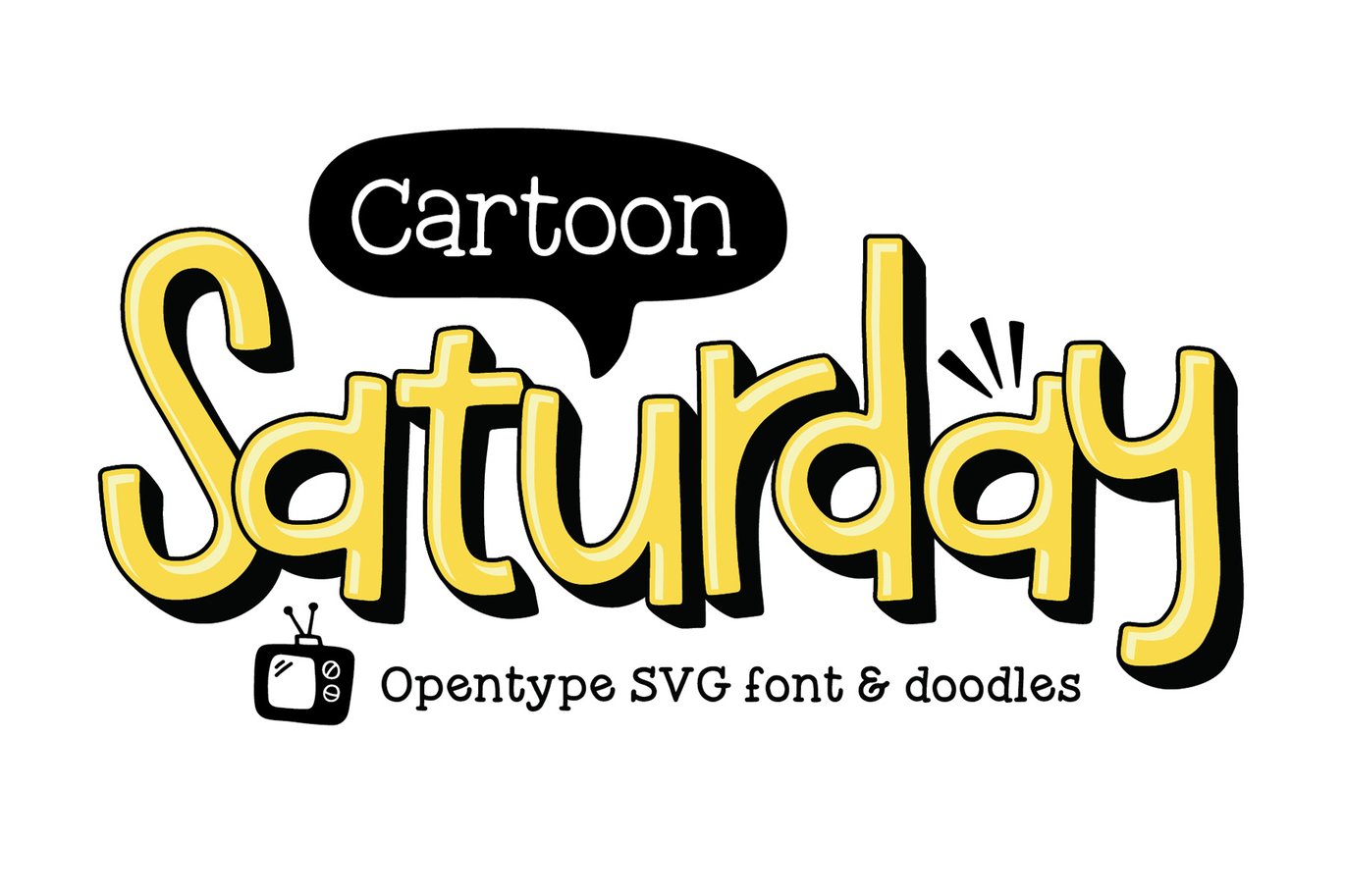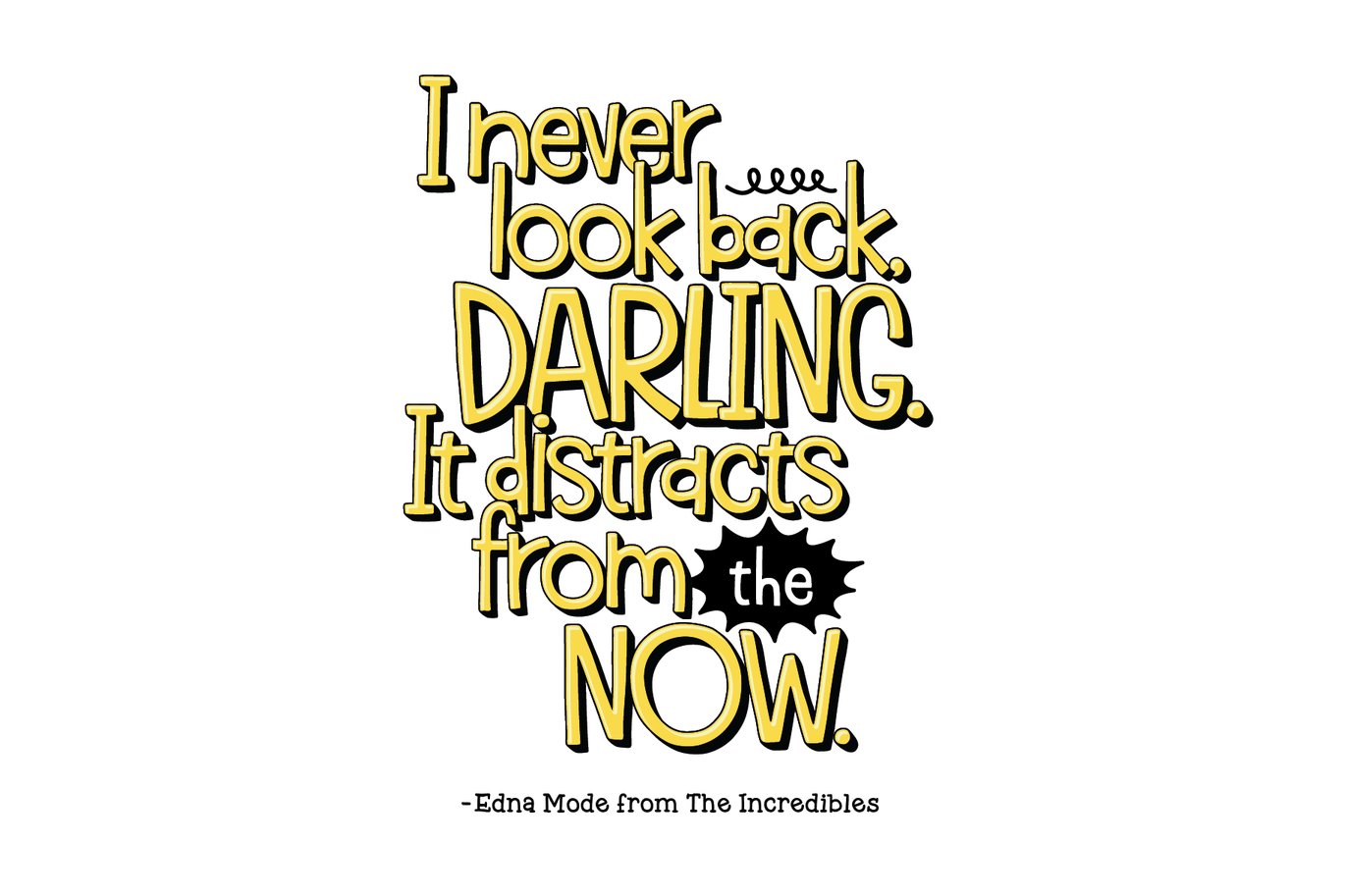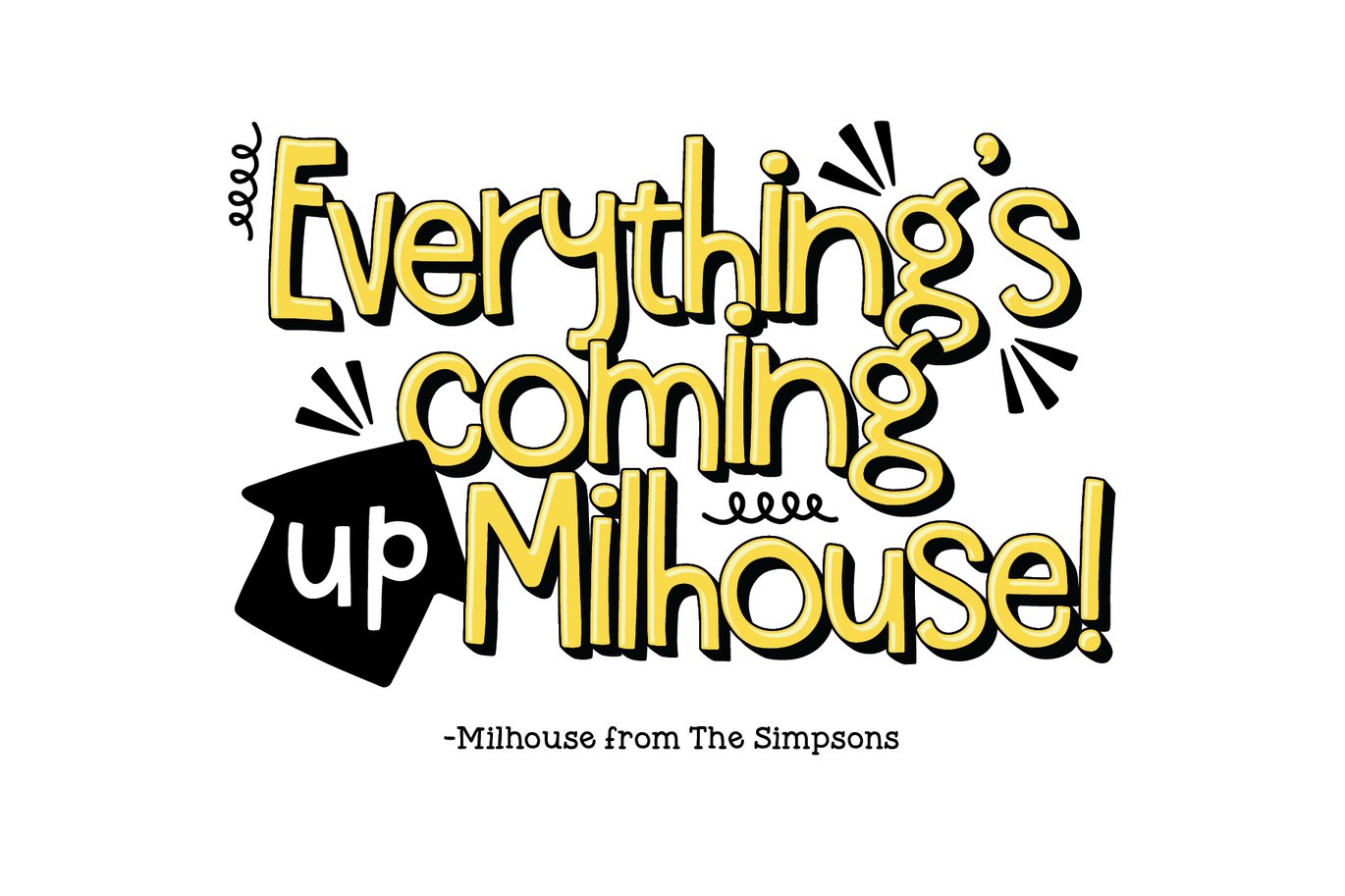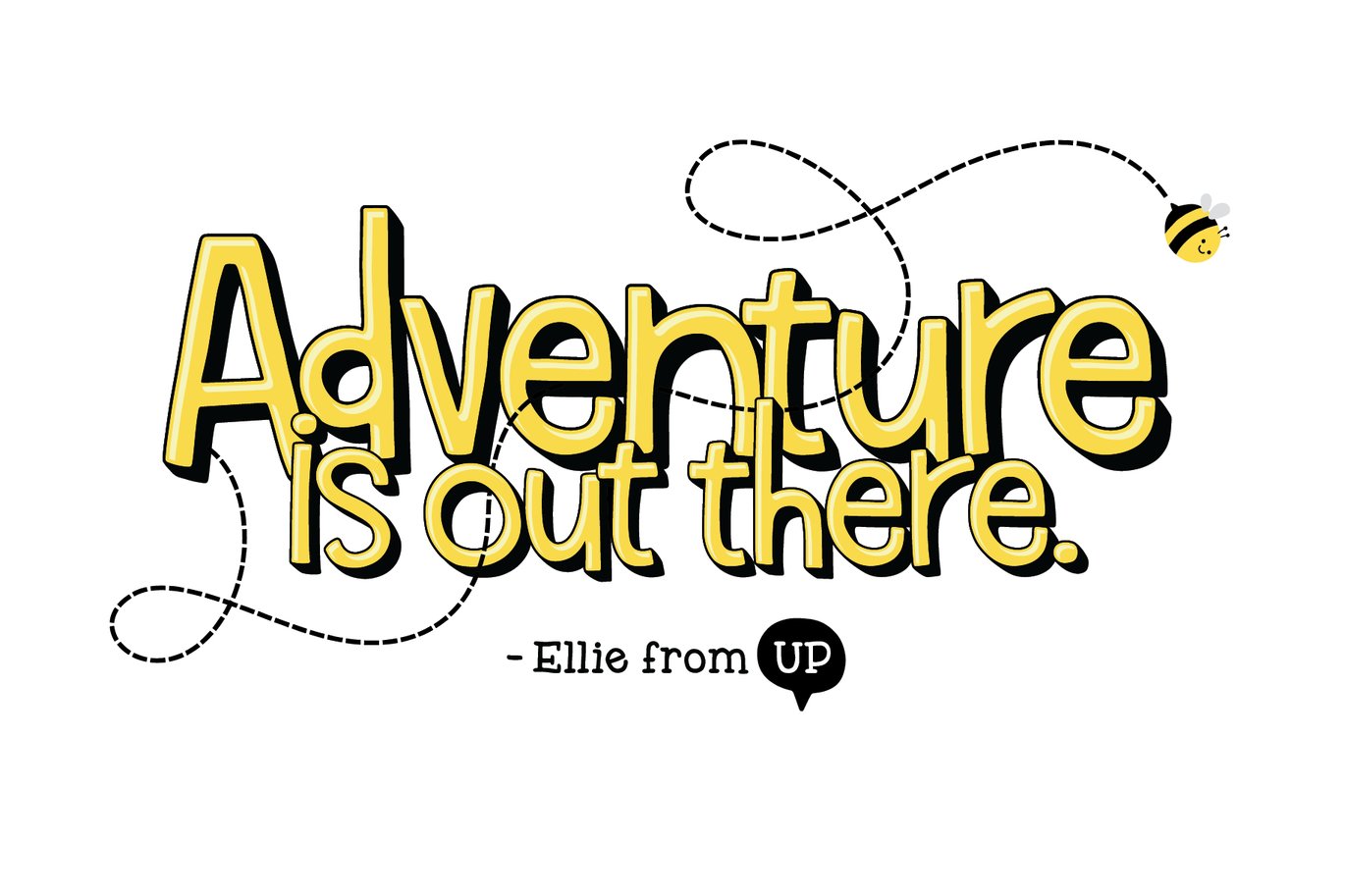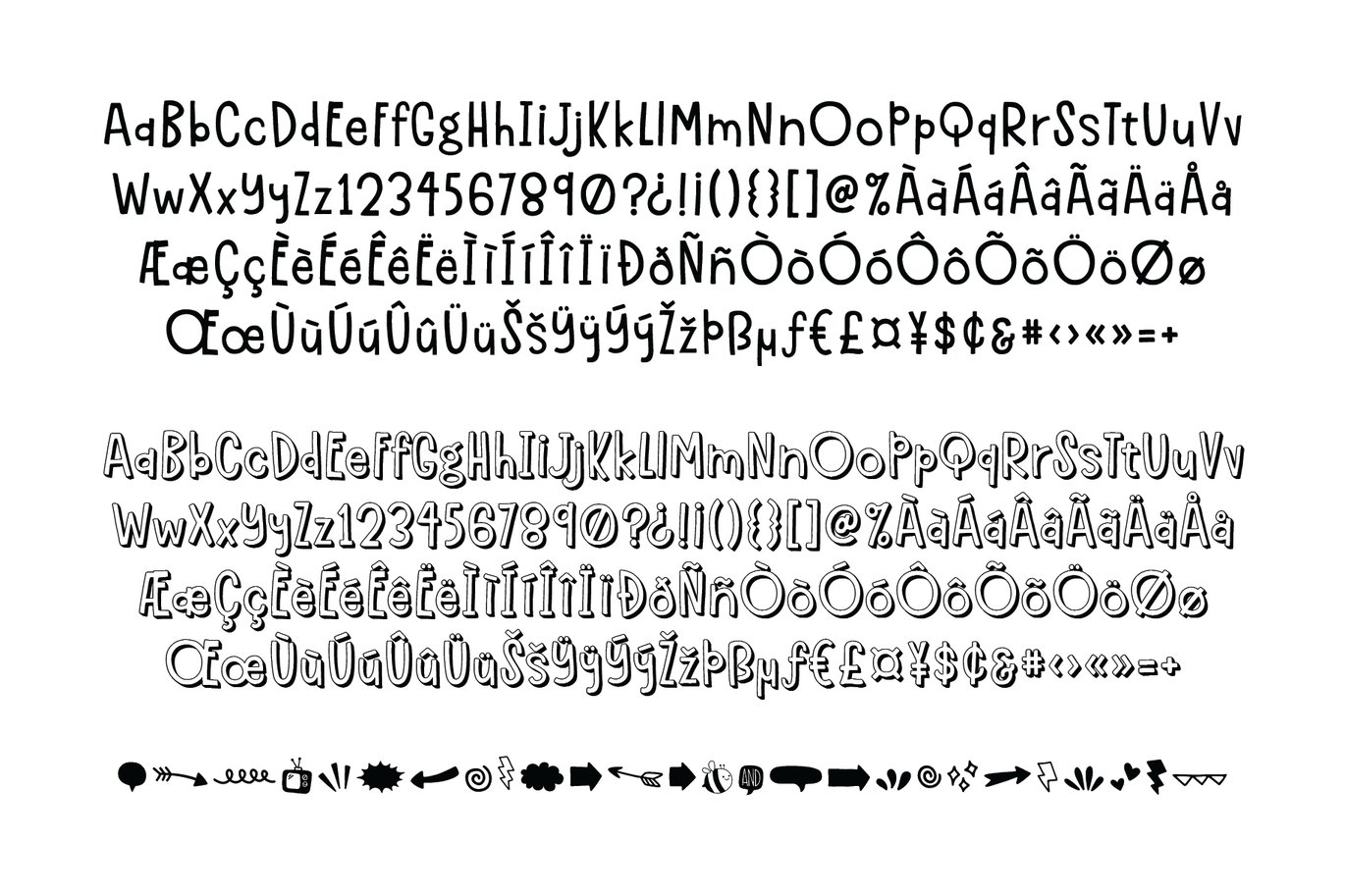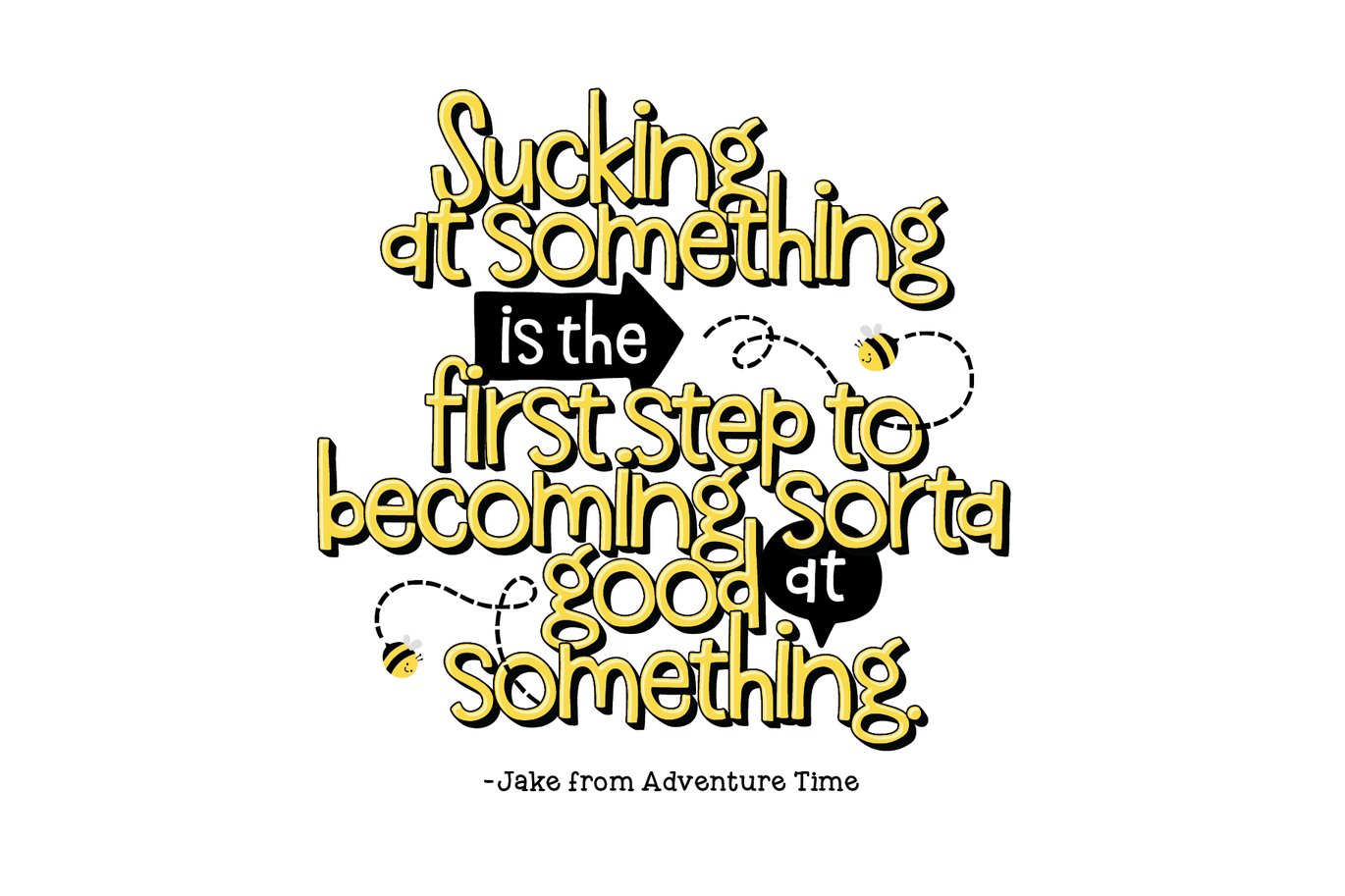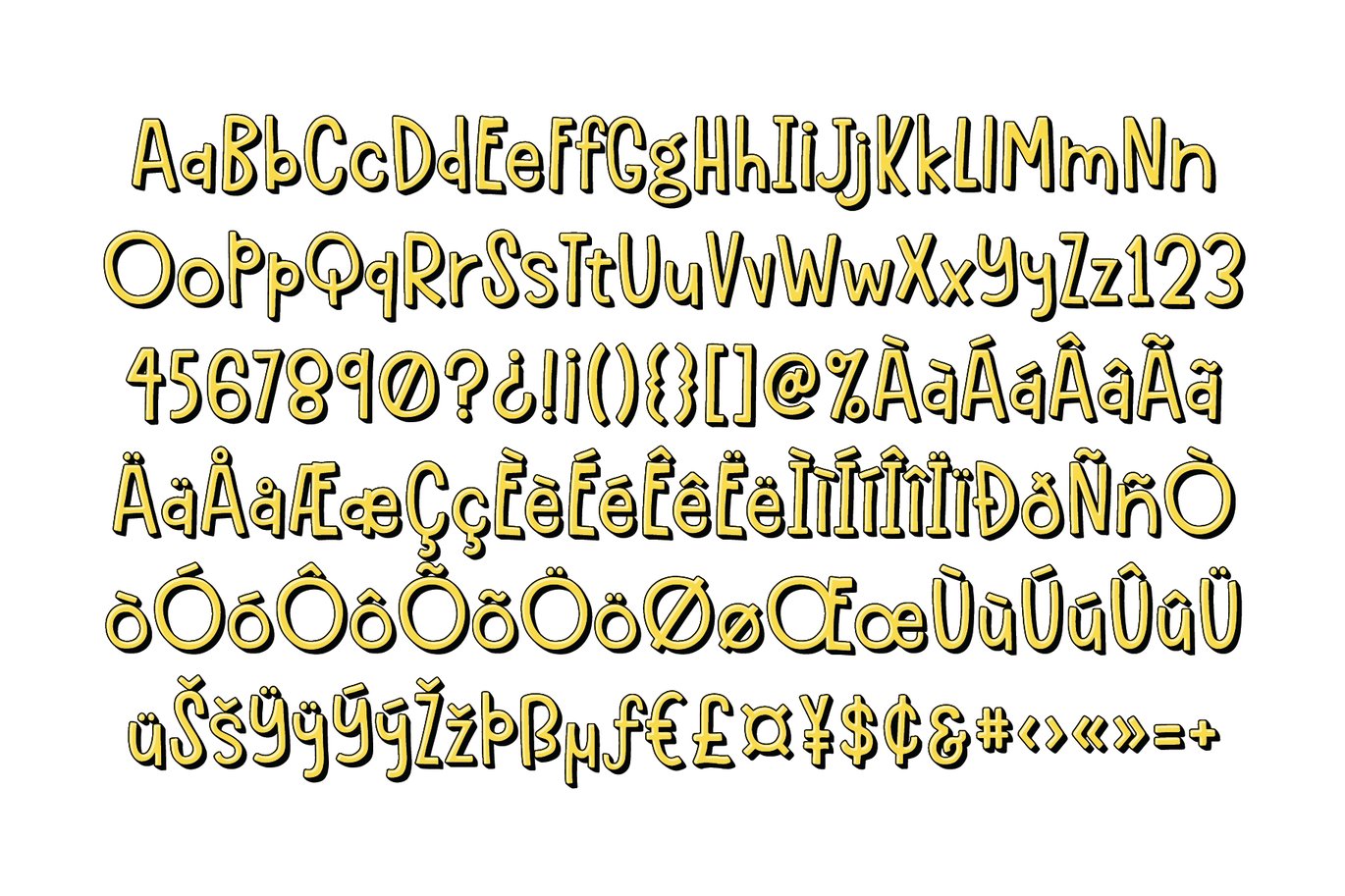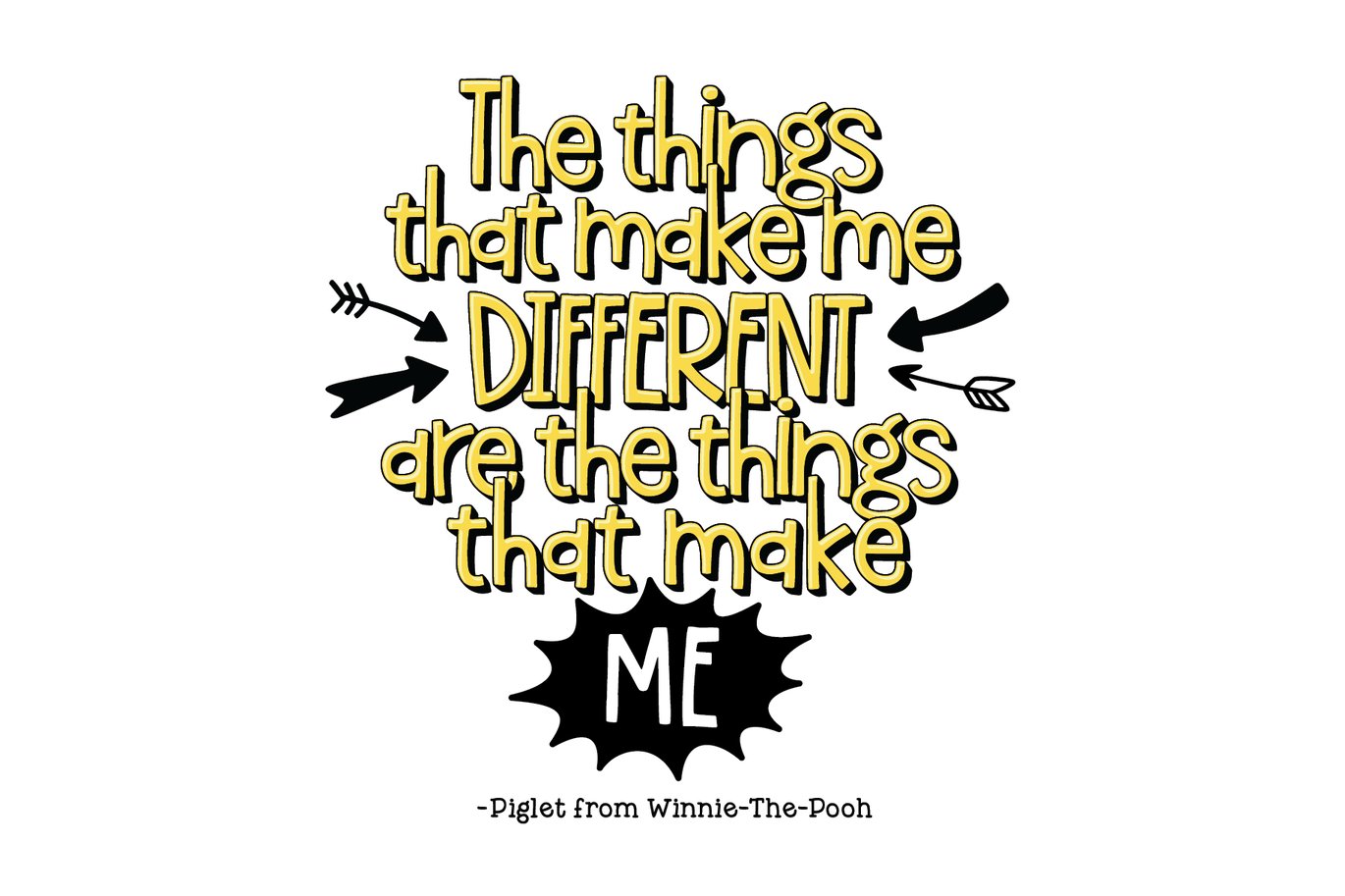
Cartoon Saturday Font
Cartoon Saturday is a friendly font bursting with charm. There is an OpenType-SVG version in yellow as well as filler and shadow versions that can be placed on top of each other.